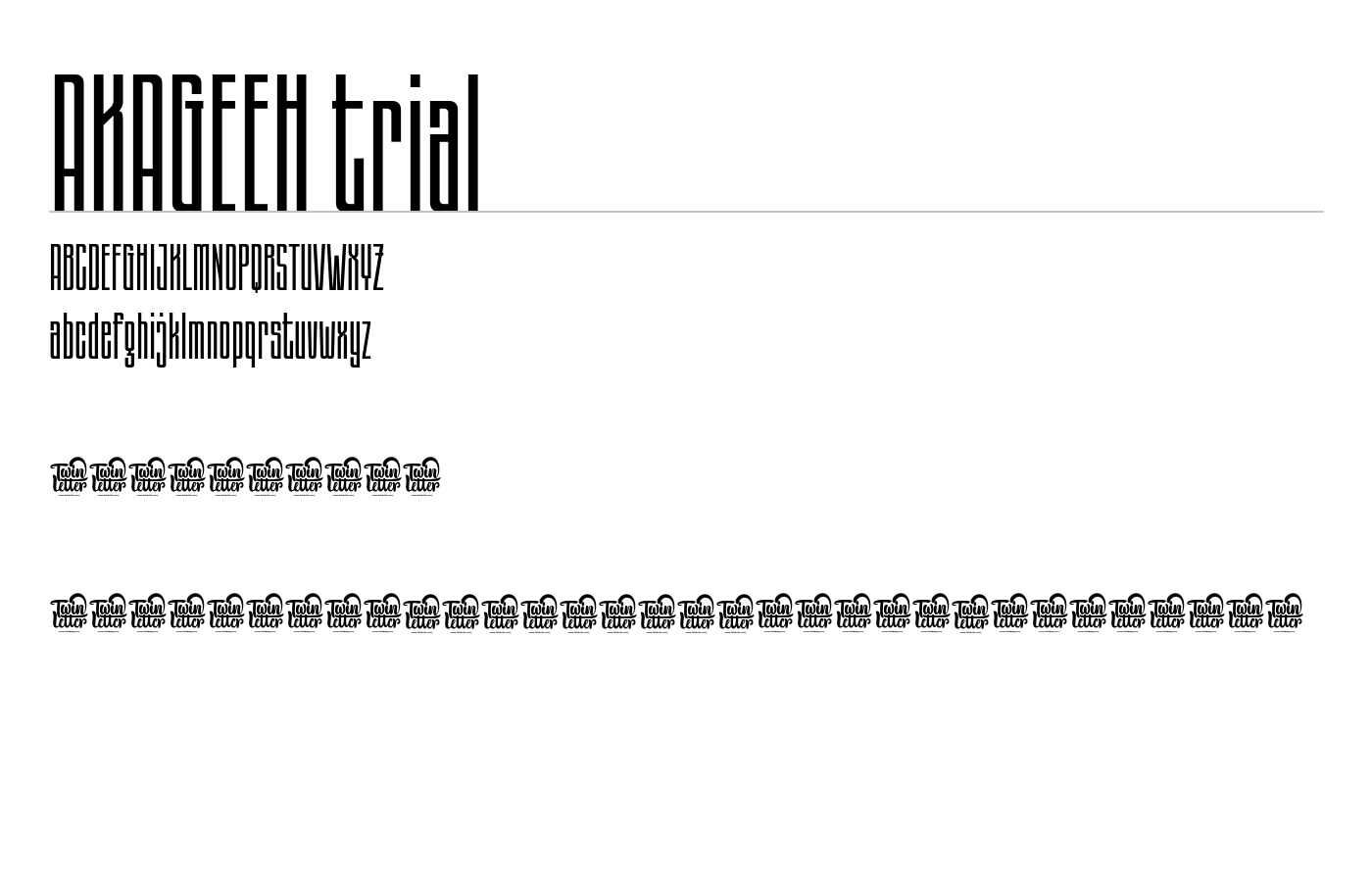
AKAGEEH trial is a narrow, tall sans serif font with a modern and condensed appearance, characterized by thin strokes and minimal contrast. Its elongated letterforms and clean lines give it a sleek, sophisticated look ideal for striking headlines or display uses. This font works well in contemporary branding, editorial layouts, and posters where a bold, stylish impact is desired.
AKAGEEH trial Font